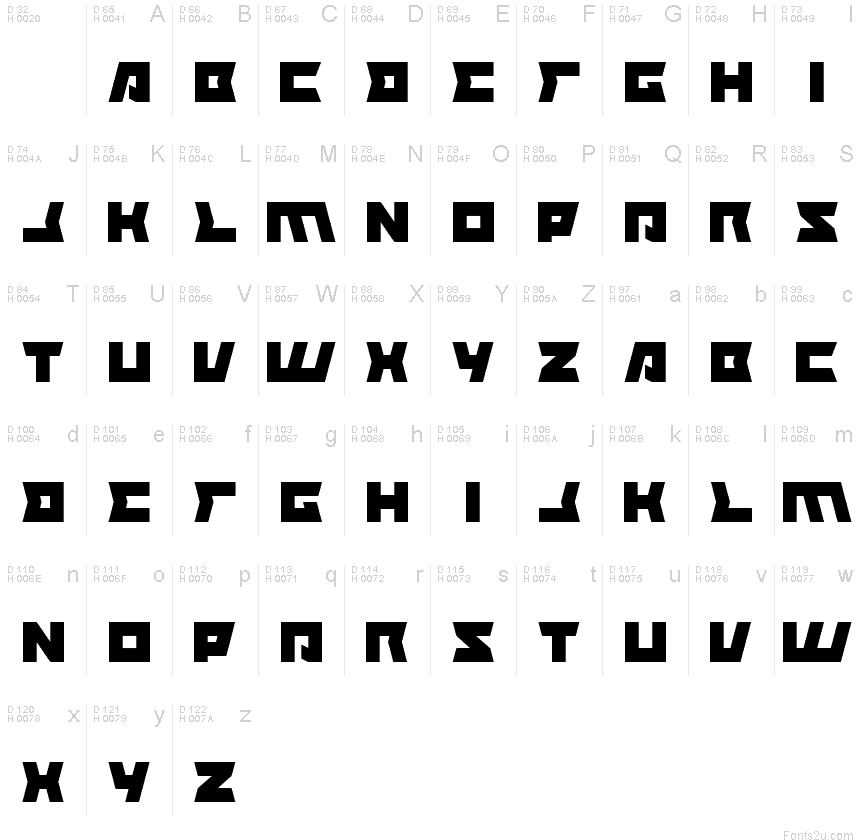
Symbol by Weknow is a free techno display font with massive, sharply cut forms and a severe futuristic profile. Rectangular openings and wedge-shaped slices break through the dense letters.
Designers working in electronic music and science-fiction entertainment can use it for album covers, posters, and title cards. Its hard-edged silhouette has the force of a machine housing or warning panel. It is strongest in branding for games and technology events, where the cutaway shapes can become part of an emblem.